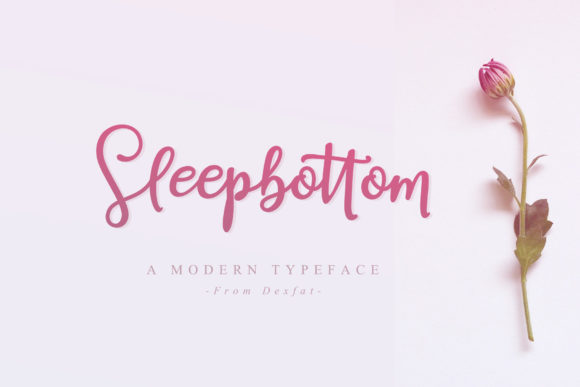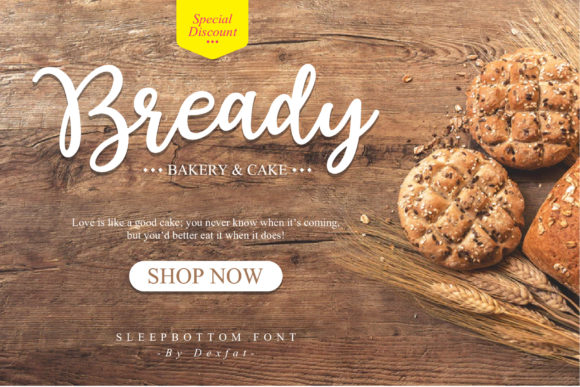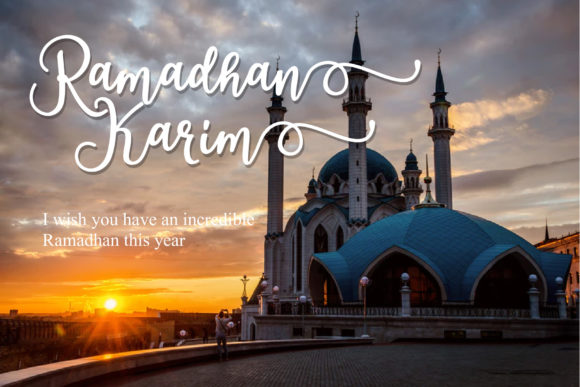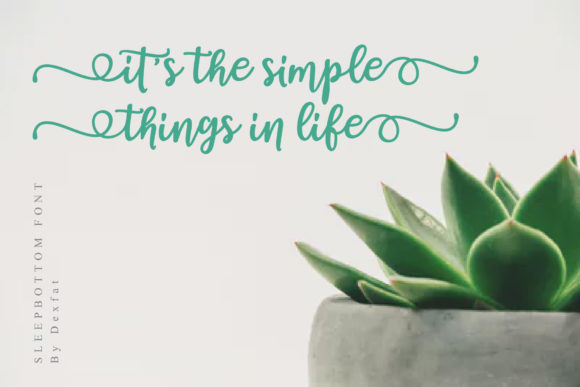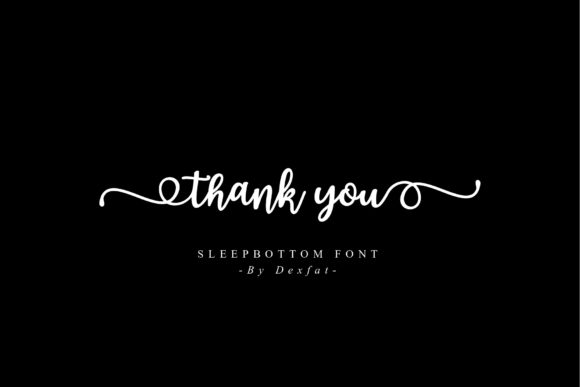
Sleepbottom Font
About Sleepbottom Font
Sleepbottom is a one-of-a-kind handwritten font with a lovely and romantic feel. It will elevate any creative project with its lovely swashes.